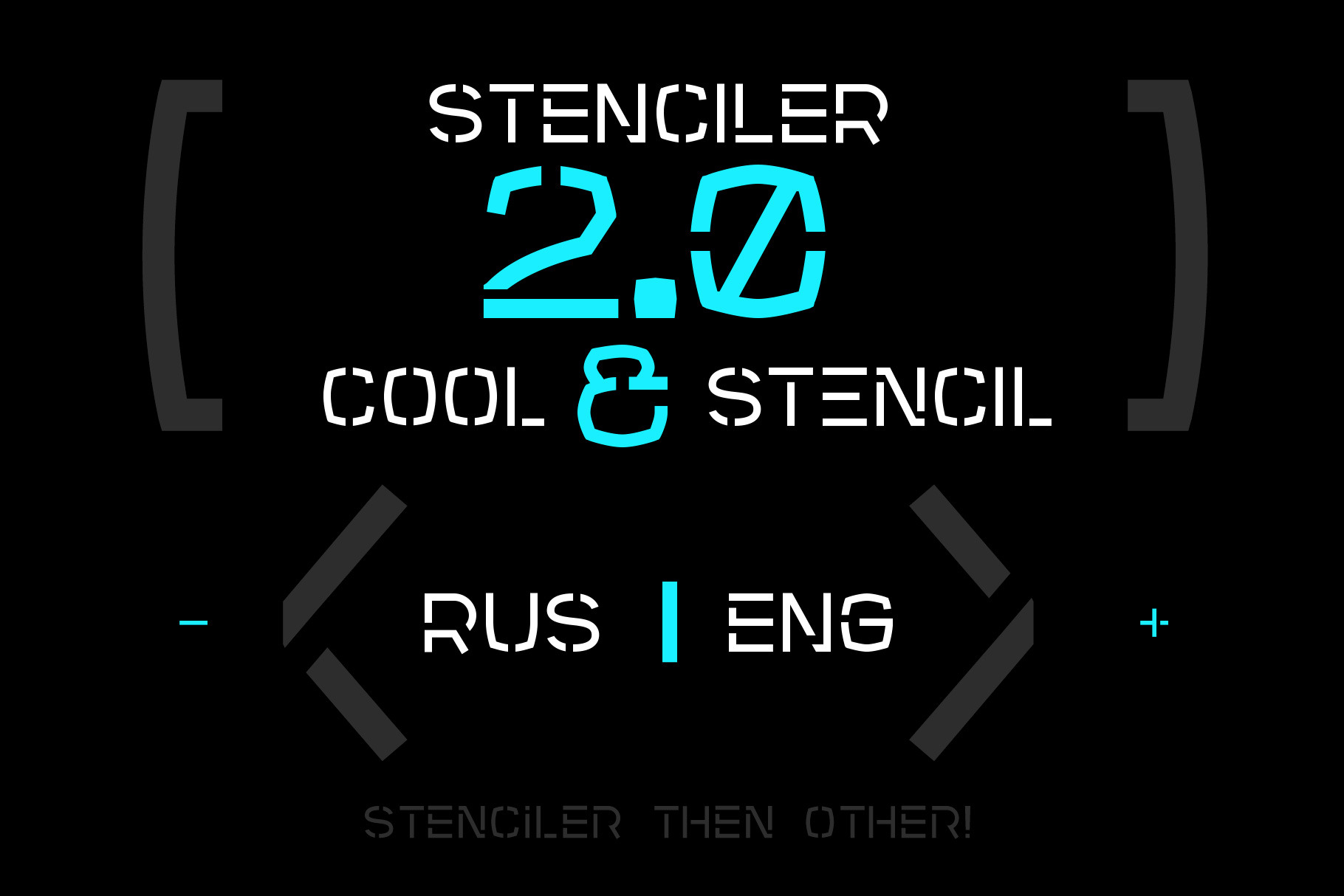
Stenciler | Stencil font
Stenciler is a sans serif, stencil, all caps font. Latin and Cyrillic. Similar letters in Latin and Cyrillic looks different.